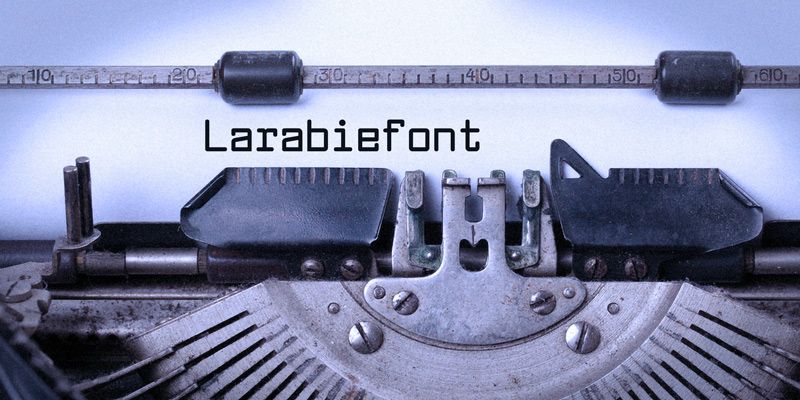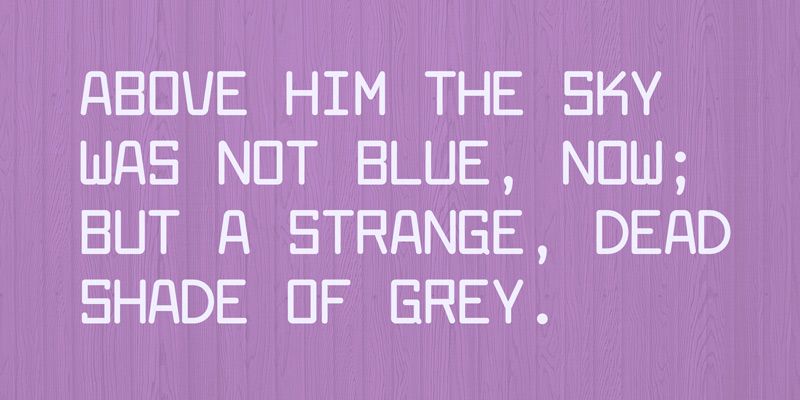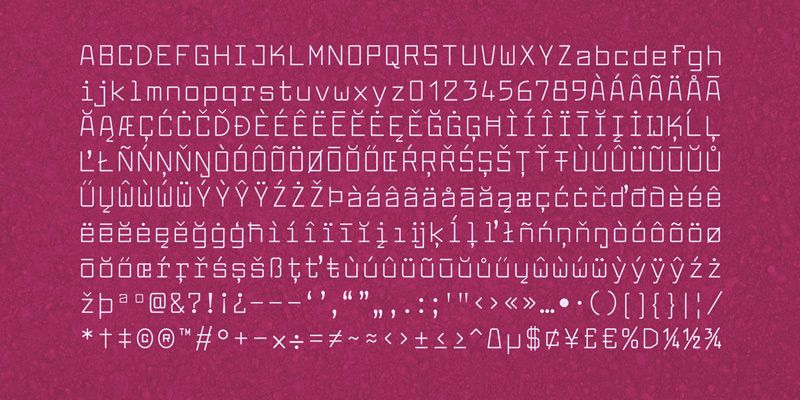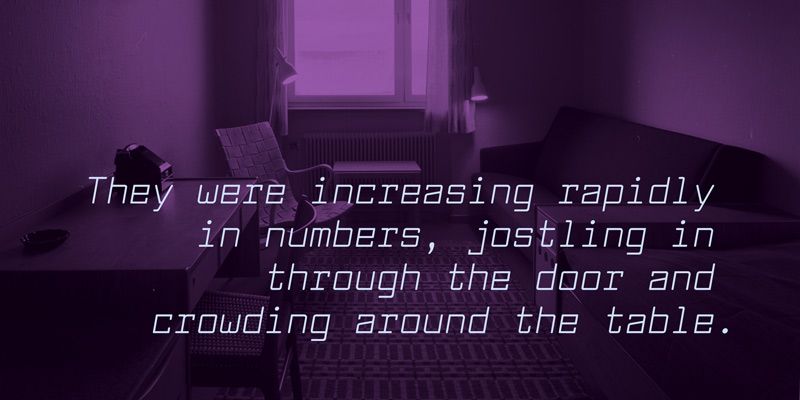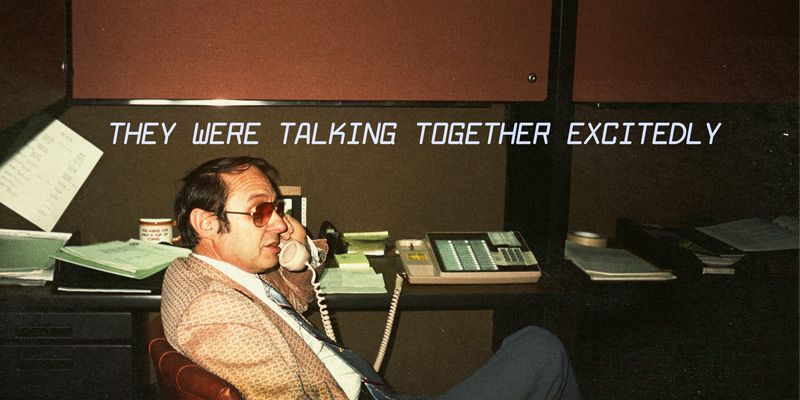
Larabiefont recalls the clear, even impression of an early-1970s manual typewriter. Every character occupies the same width, but rounded corners and carefully defined shapes keep the machine rhythm from becoming cold. It can give a service record, archive label, technical note, or period title the texture of typed information. Regular, Italic, Bold, and Bold Italic allow emphasis within that fixed-cell structure, from an unassuming note to a forceful stamped heading.